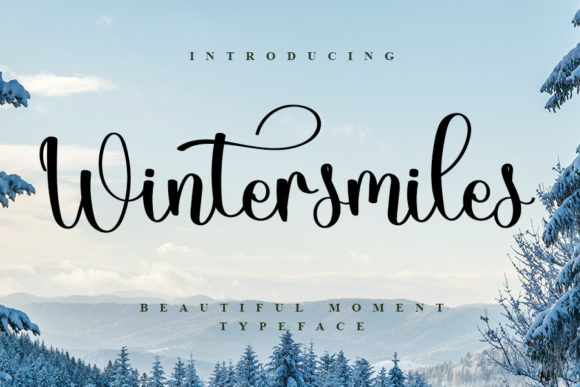
Wintersmiles Font
Immerse yourself in the world of sophistication and elegance with Wintersmiles Font, a captivating script font family crafted by FreshTypeINK. Designed to evoke a sense of timeless beauty, Wintersmiles' flowing and graceful lines will add a touch of charm and personality to your creative endeavors.
Indulge in the versatility of Wintersmiles, a font that seamlessly adapts to a myriad of projects. From creating ravishing wedding invitations that exude romance to crafting elegant stationary art that speaks volumes, Wintersmiles is your ultimate companion. Unleash your creativity and design captivating social media posts that will leave your audience spellbound. The possibilities are endless with Wintersmiles as your font of choice.
Step into the world of Wintersmiles and let your imagination soar. Its stunning style is bound to captivate and enchant, leaving a lasting impression on your audience. Whether you're a seasoned designer or just starting out, Wintersmiles is the perfect font to elevate your projects and leave an unforgettable mark. Experience the beauty and grace of Wintersmiles today and embark on a creative journey like never before.